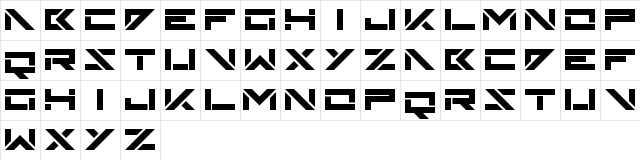
Skinz Regular
| Designer | GeronimoFonts |
Design Context for Skinz Typeface
Skinz is a composed and adaptable typeface that performs quietly and consistently across a wide range of design contexts.